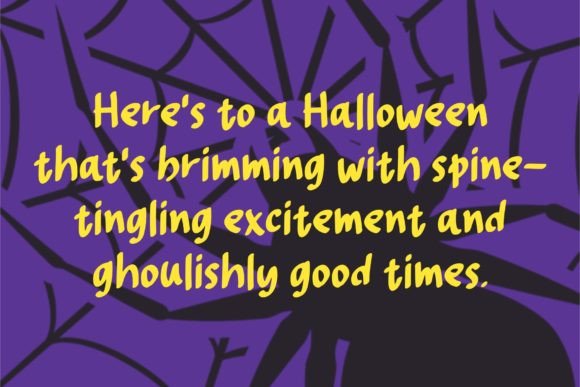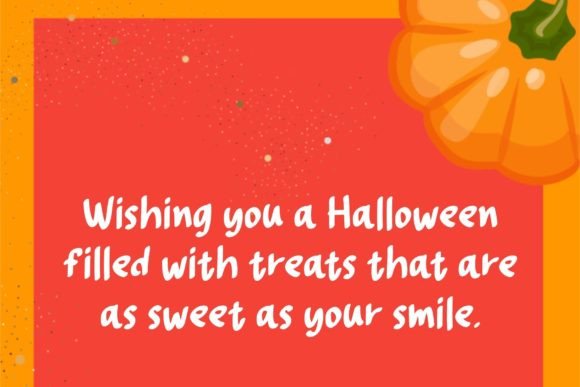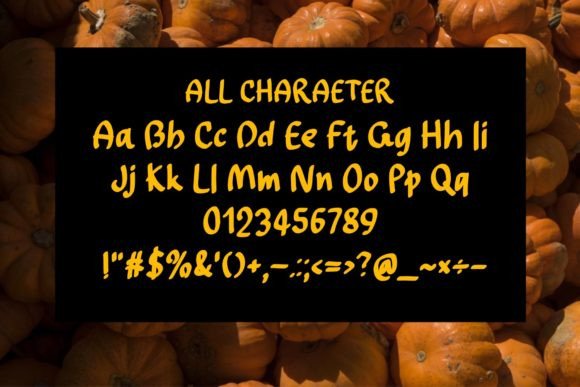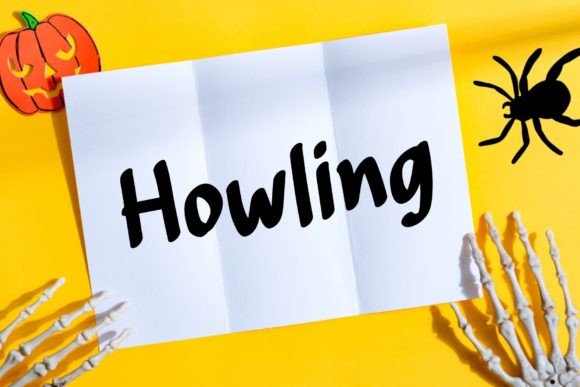
Introduction to Howling Font
As a designer, there’s nothing quite like the rush of inspiration that comes from discovering a new, high-quality font. It’s that moment when you stumble upon the perfect design resource to elevate your creative project and make it truly unforgettable. For me, that moment came when I discovered the Howling Font – a font that embodies the primal energy of the wilderness and exudes confidence and adventure.
Whether you’re working on a bold headline, a logo, or a branding campaign, the Howling Font is the perfect choice to grab attention and leave a lasting impression on your audience. Its unique character set and eye-catching letterforms make it a valuable addition to any designer’s toolkit, and its transparent background ensures seamless integration into any design project.
Key Features of Howling Font
• High-quality font design, ideal for creative projects requiring a unique touch
• Transparent background, allowing for seamless integration into various design elements
• Features a bold and modern design, perfect for adding a touch of sophistication to any creative project
• Includes a range of characters, including uppercase and lowercase letters, numbers, and special symbols
Honest Review: Howling Font
I recently came across the Howling Font, a free design resource that has been making waves in the creative community. As a designer, I was excited to give it a try and see if it lived up to the hype.
First impressions are everything, and the Howling Font definitely delivers. The font is available for free download, which is a huge plus for anyone working on a budget. The high quality of the font is immediately apparent, with crisp lines and a professional feel that’s perfect for a variety of creative projects.
• High quality design with crisp lines and a professional feel
• Transparent background, allowing for seamless integration into designs
• Limited character set, which may be a issue for designers working on complex projects
• No bold or italic variations, which can limit the font’s versatility
Overall, I’m impressed with the Howling Font. While it may have some limitations, its high quality and free availability make it a valuable resource for designers working on a variety of creative projects.
The Howling Font is a versatile design resource that can be used in a variety of creative projects, including logos, posters, and social media graphics. Its high-quality design and transparent background make it perfect for use in presentations, infographics, and other visual content.
To get the most out of the Howling Font, try combining it with other design elements, such as images and shapes, to create a unique and eye-catching design. You can also experiment with different font sizes, colors, and styles to find the perfect look for your project.